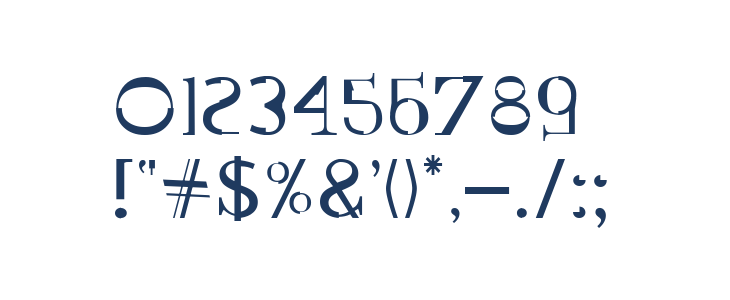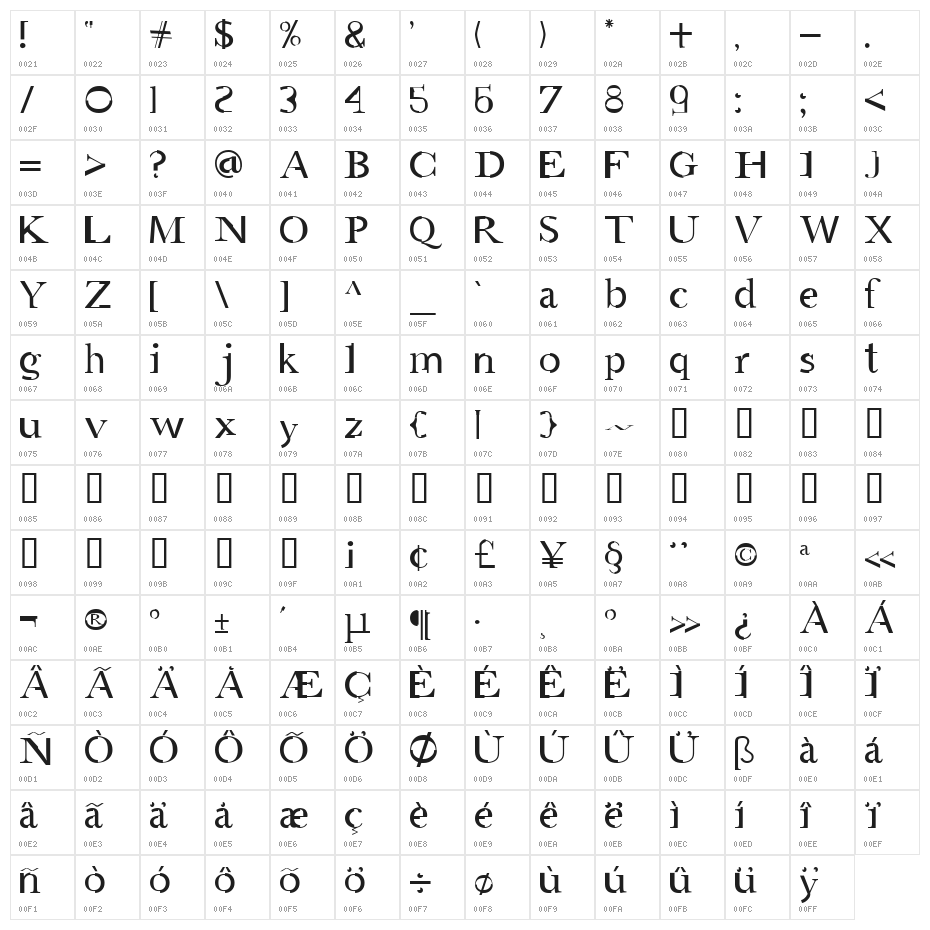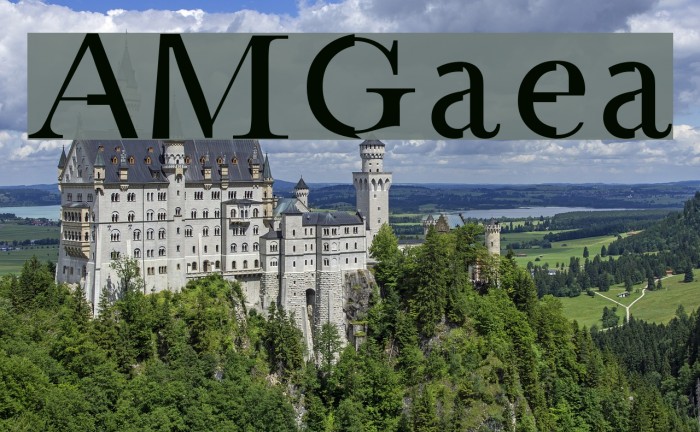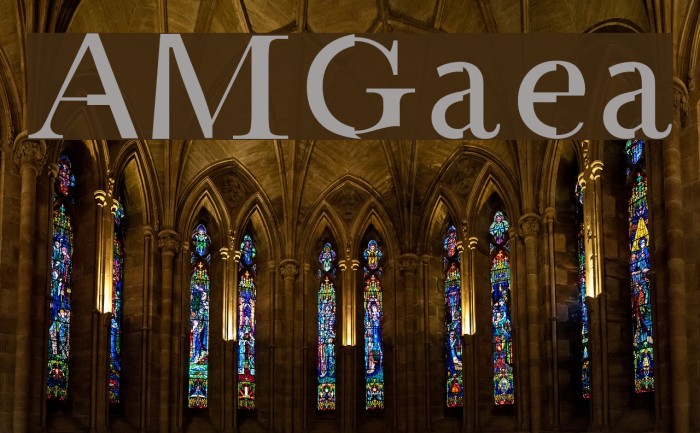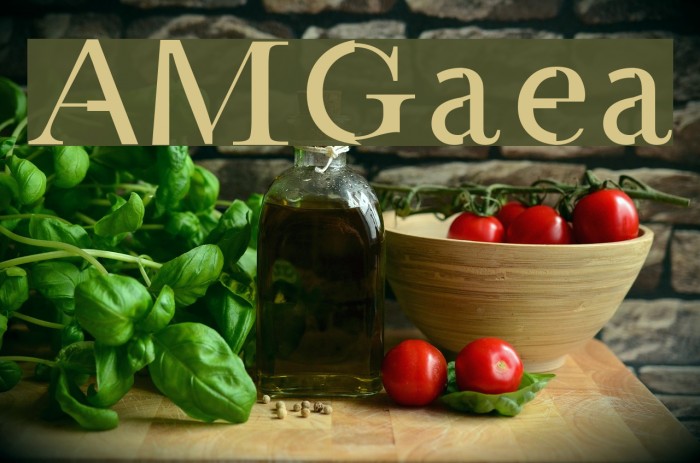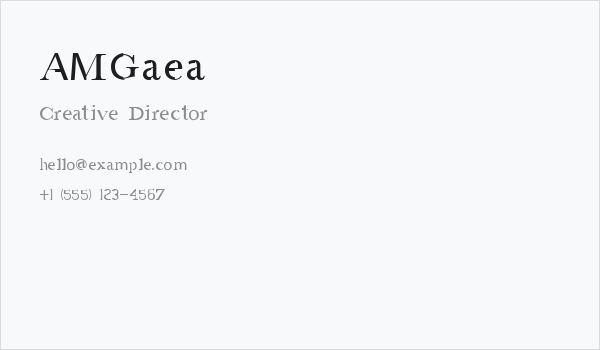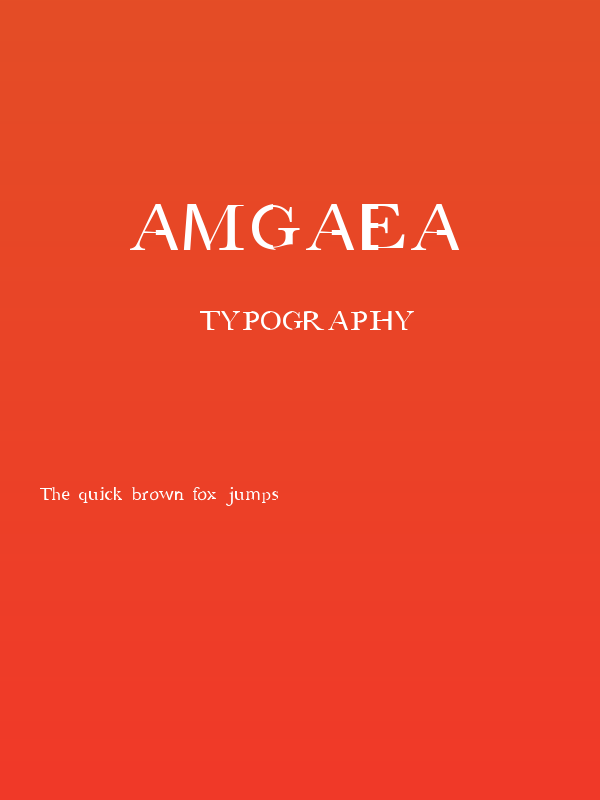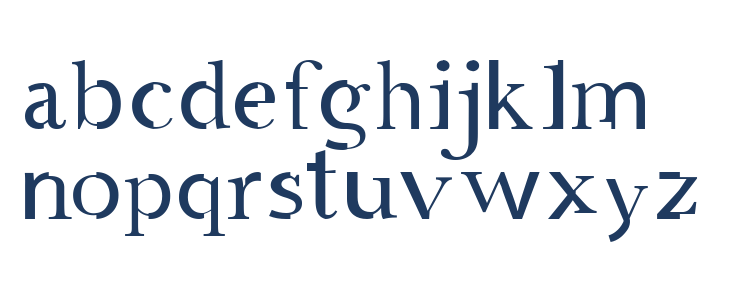
AMGaea Font
AMGaea Description
This font features a unique blend of classic and modern elements, characterized by its distinct serifs and moderate stroke contrast. The uppercase letters exhibit a strong presence with sharp, angular serifs, while the lowercase letters maintain a more rounded and approachable appearance. The numerals are bold and easily readable, making them suitable for various applications. Special characters are designed with a consistent style, ensuring a cohesive look across all text. The overall design is both elegant and versatile, making it suitable for a wide range of design projects.
| Proposed Projects | Ideal for editorial design, branding, and print materials where a sophisticated yet modern look is desired. |